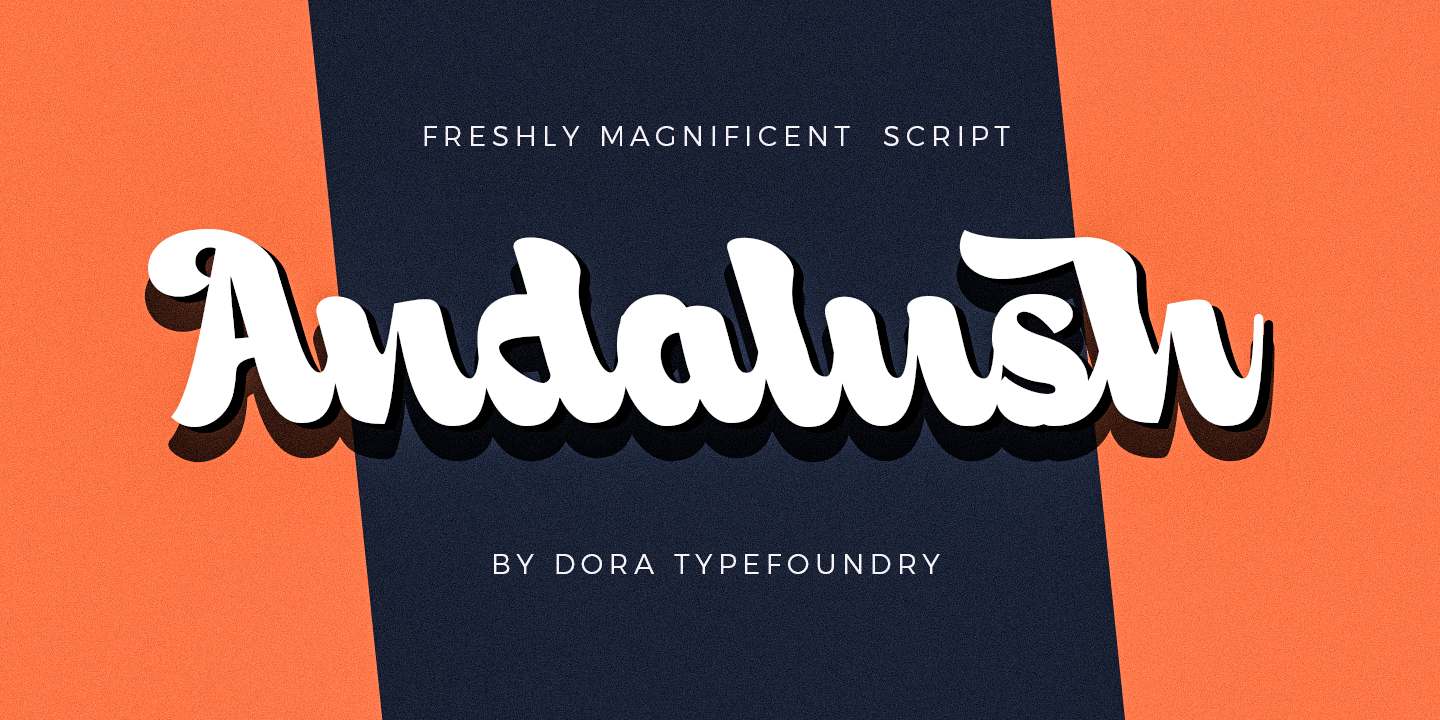
Andalush Font is an exquisite and richly evocative typeface, perfectly suited for projects that aim to capture a sense of exotic elegance, historical depth, and intricate beauty. Imagine it gracing the luxurious branding for a boutique hotel inspired by Moorish architecture, adding an authentic and captivating touch to cultural festival posters, or providing a distinguished aesthetic for gourmet food packaging with a global flair. It's also an excellent choice for crafting unique book covers for historical fiction, designing sophisticated wedding invitations with an international twist, or infusing artistic portfolios and digital content with a truly enchanting and refined personality. If you're looking to convey heritage, artistry, and an undeniable sense of luxurious charm, Andalush Font is an outstanding selection.
What makes Andalush Font so exciting? It’s its unparalleled ability to blend traditional calligraphic or decorative elements with contemporary digital precision, resulting in a font that feels both profoundly historic and remarkably versatile. This font often features graceful curves, intricate details, and a harmonious flow that gives it an undeniable charisma and visual richness, reminiscent of ancient manuscripts or ornate architectural patterns. Despite its decorative flair, Andalush Font is meticulously designed to maintain excellent readability, ensuring your message is communicated beautifully and with an ethereal, captivating tone. Designers will appreciate its versatility in creating designs that feel both artistically elaborate and professionally polished, making it a go-to choice for brands and projects that aim to evoke a sense of mystique, tradition, and sophisticated artistry.
The Andalush Font family is typically designed to showcase a singular, beautifully crafted script or display style that perfectly embodies its unique appeal. While it may not feature extensive weight variations like a traditional text font, its strength lies in its inherent personality and often includes a rich set of stylistic alternates, ligatures, or swashes that enhance its elaborate aesthetic. These subtle details allow Andalush Font to maintain its cohesive and enchanting look across various applications, from elegant brand endorsements to charming personal correspondence. Discover the captivating allure of Andalush Font Free Download and infuse your designs with an unforgettable sense of cultural splendor.